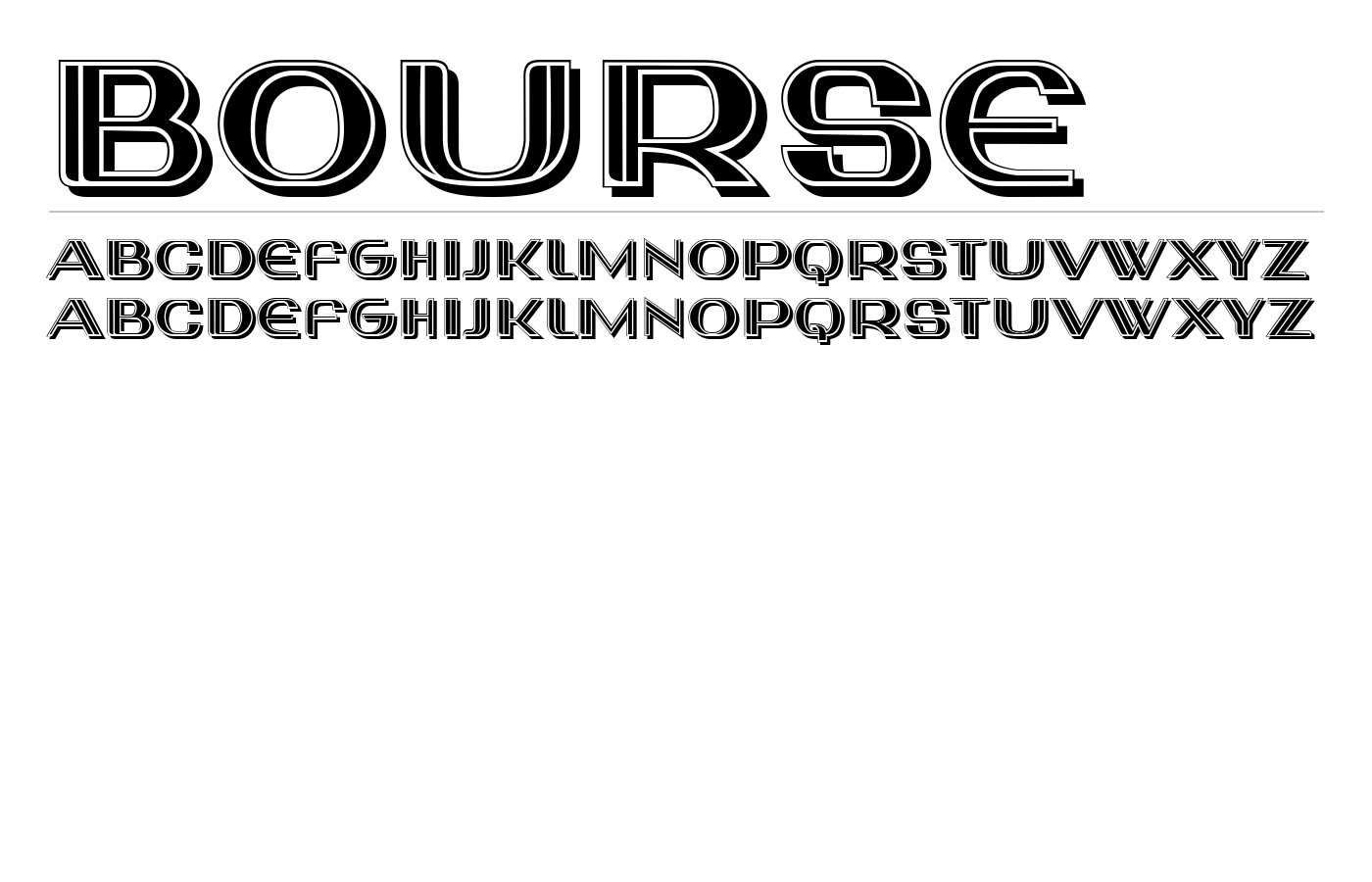
Bourse is a bold and decorative sans serif font featuring art deco-inspired geometric layering with strong contrast between thick and thin lines. Its uppercase-only design and intricate stroke details create a dynamic, vintage feel that works well for striking headlines, logos, and stylish branding. This font is ideal for projects seeking a sophisticated yet playful look with a strong visual impact.
Bourse Font
About Bourse Font